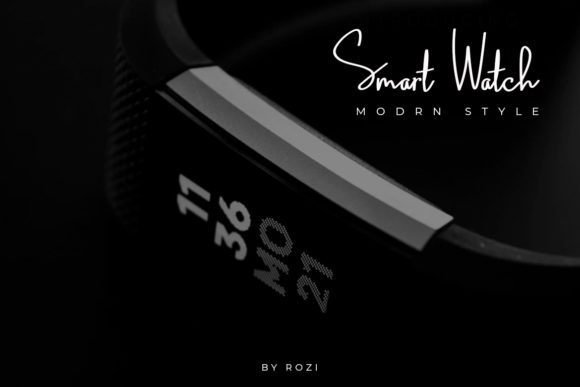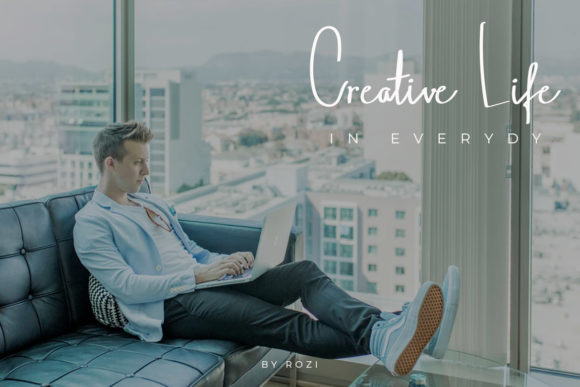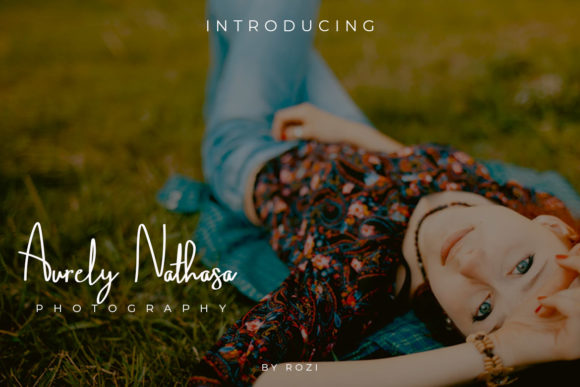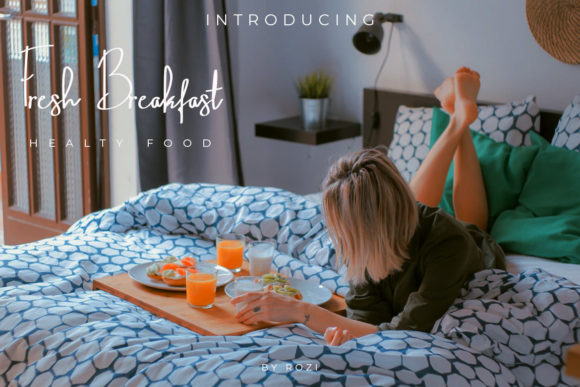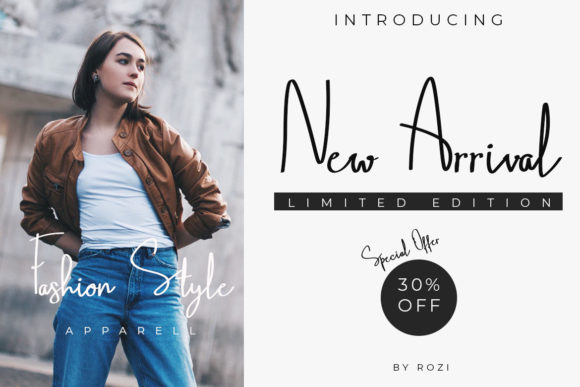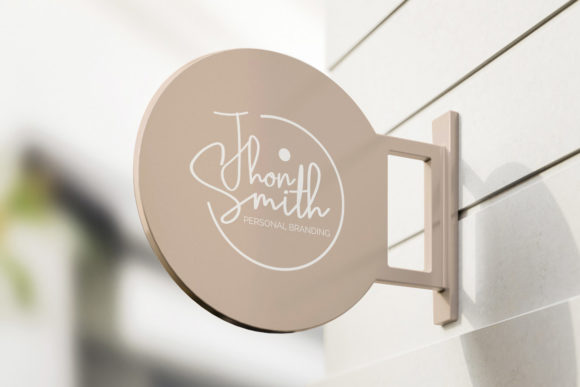
Introduction to Roytafa Font
Have you ever been working on a creative project, and suddenly, the perfect font pops into your mind? It’s like a spark of inspiration that sets your design off in the right direction. For designers, finding the right font can be a game-changer. And today, we’re excited to introduce you to the perfect addition to your design arsenal: Roytafa Font.
This gorgeous script font is designed to add a contemporary touch to any design idea. With its playful and dynamic feel, Roytafa Font is perfect for designers who want to make a statement. Whether you’re working on a free download project or creating a high-quality design for a client, this font is sure to impress. Its transparent background and elegant swashes make it a valuable resource for any designer looking to elevate their work.
Key Features of Roytafa Font
- Designed with a unique aesthetic, making it perfect for modern designs and branding
- Great for use in digital designs, such as logos, icons, and graphics, as well as print materials
Honest Review: Roytafa Font
As a designer, I’m always on the lookout for high-quality design resources to elevate my creative projects. The Roytafa Font caught my eye with its unique and stylish aesthetic. I was excited to dive in and see if it lived up to its promise.
- ✨ High-quality design: The Roytafa Font is incredibly detailed and refined, making it perfect for a variety of creative projects.
- ✨ Transparent background: The font’s transparent background allows for seamless integration with any design element, giving you complete control over the look and feel.
Any limitations:
- ⚠️ Limited font styles: While the font is high-quality, the number of styles available is limited, which may not be ideal for designers who need a wide range of options.
- ⚠️ Not suitable for all projects: The font’s unique style may not be suitable for all types of projects, particularly those that require a more traditional or conservative look.
Overall, I was impressed with the Roytafa Font’s quality and versatility. While it may not be the perfect fit for every project, it’s definitely a valuable addition to any designer’s toolkit.
How to Use Roytafa Font
Tips for Getting the Most Out of Roytafa Font
For optimal results, use the Roytafa Font in high-quality designs, such as creative projects or marketing materials. The font’s transparent background is ideal for designs that require a clean and minimalist look. When using the font in Canva, consider adjusting the design to accommodate the font’s limitations.
The Roytafa Font is ideal for use in creative projects, such as branding materials, social media graphics, and marketing campaigns. Its high-quality design and transparent background make it a versatile resource for designers and non-designers alike.